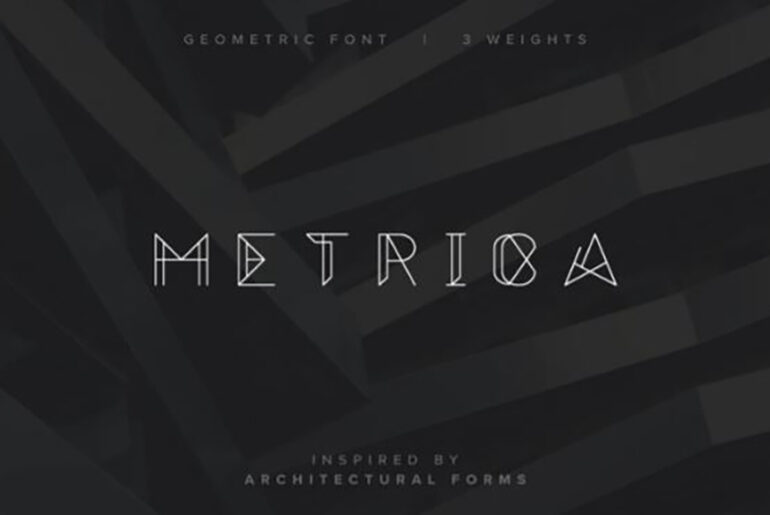
Metrica Font – Fonts for Architects
In the dynamic realm of graphic design and architecture, every detail matters, and typography is no exception. One font that has been making waves in the design community is the Metrica Font. Renowned for its sleek, modern aesthetic and versatility, Metrica Font has become a staple for architects looking to elevate the visual appeal of their portfolios and presentations.
Understanding Metrica Font
Metrica Font is a typeface that seamlessly blends form and function. Developed by leading typographers with a keen eye for design trends, it offers a distinctive and contemporary look. The font is characterized by clean lines, geometric shapes, and a sense of precision that resonates well with the architectural aesthetic.
Exploring the Style of Metrica Font
Clean Lines and Geometric Shapes
One of the defining features of Metrica Font is its clean lines and geometric shapes. Architects appreciate the precision that these elements bring to their typographic choices. The font’s geometric foundation adds a modern touch to any text, making it a perfect complement to architectural drawings and layouts.
Versatility in Typography
Metrica Font boasts versatility in its application, making it suitable for a variety of design purposes. From bold headlines to subtle captions, the font adapts effortlessly to different contexts. This adaptability is especially valuable for architects seeking a cohesive and polished look across their portfolio.
How Architects Can Utilize Metrica Font in Their Portfolios
Creating Consistency in Branding
Architectural portfolios are a reflection of a professional’s brand. Metrica Font provides an excellent opportunity to establish a consistent and recognizable visual identity. By using Metrica Font across different elements of a portfolio, such as project descriptions, headings, and captions, architects can create a cohesive and branded presentation.
Enhancing Readability and Impact
In the world of architecture, conveying information clearly and effectively is crucial. Metrica Font’s clean lines and well-defined characters contribute to enhanced readability. Whether it’s showcasing project details or presenting a design philosophy, architects can use Metrica Font to ensure that their message is communicated with impact.
Showcasing Modernity and Innovation
Architects are often at the forefront of innovation and modern design. Metrica Font aligns seamlessly with these principles, making it an ideal choice for architects aiming to convey a sense of modernity and innovation in their work. The font’s contemporary aesthetic resonates with clients and collaborators, setting a tone of forward-thinking creativity.
Real-world Examples of Metrica Font in Architectural Portfolios
To illustrate the effective use of Metrica Font in architectural portfolios, let’s explore a few real-world examples:
Example 1: Urban Oasis Project
In the Urban Oasis project portfolio, Metrica Font was employed for project titles and descriptions. The font’s geometric shapes complemented the project’s modern design, creating a visual harmony between the text and the architectural visuals.
Example 2: Sustainable Living Community Brochure
For a brochure promoting a sustainable living community, Metrica Font was utilized to convey the project’s eco-friendly ethos. The font’s versatility allowed for seamless integration into both headlines and body text, maintaining a polished and unified appearance.
How to Incorporate Metrica Font into Your Design Toolkit
Now that the benefits of Metrica Font for architects have been highlighted, it’s essential to know how to incorporate it effectively. Here are some practical steps:
-
Font Pairing
While Metrica Font stands out on its own, architects can enhance its impact by pairing it with complementary fonts. This can be particularly useful for creating hierarchy in textual elements within a portfolio.
-
Use of Font Weights
Metrica Font offers various weights, from light to bold. Architects can leverage this range to emphasize key points, create contrast, and guide the reader’s attention through different sections of a portfolio.
-
Consistent Application
To maximize the impact of Metrica Font, architects should maintain consistency in its application. Whether it’s an online portfolio, printed materials, or presentation slides, using Metrica Font consistently reinforces the professional and branded look.
Conclusion: Elevate Your Architectural Typography with Metrica Font
In conclusion, Metrica Font emerges as a powerful tool for architects seeking to enhance the visual appeal and professionalism of their portfolios. Its clean lines, geometric shapes, and versatility make it a standout choice in the world of architectural typography. By understanding the nuances of Metrica Font and incorporating it strategically, architects can create a lasting impression that reflects their commitment to precision and modern design.
As the architectural landscape continues to evolve, embracing innovative typographic choices such as Metrica Font becomes instrumental in staying ahead. Elevate your design aesthetic, communicate with clarity, and leave a lasting impression – all achievable with the dynamic and sophisticated Metrica Font.